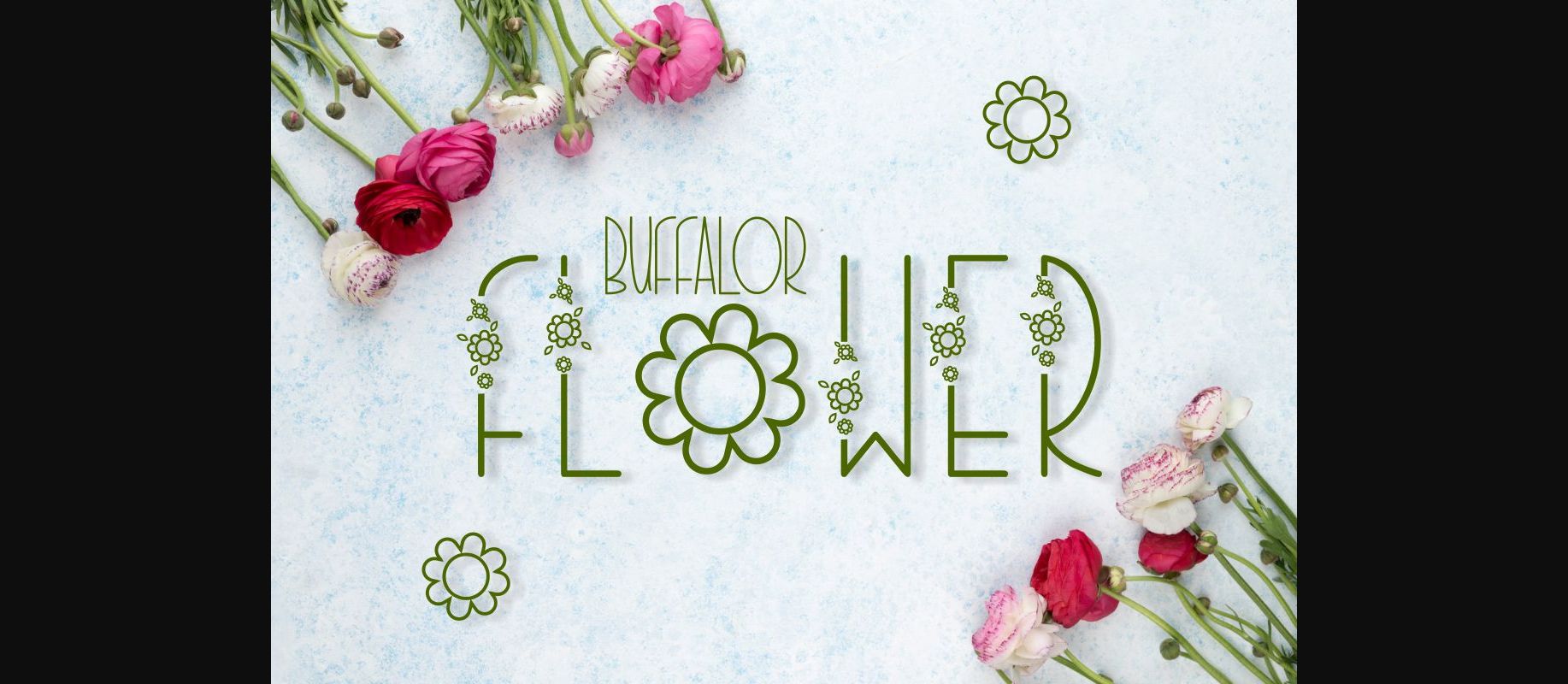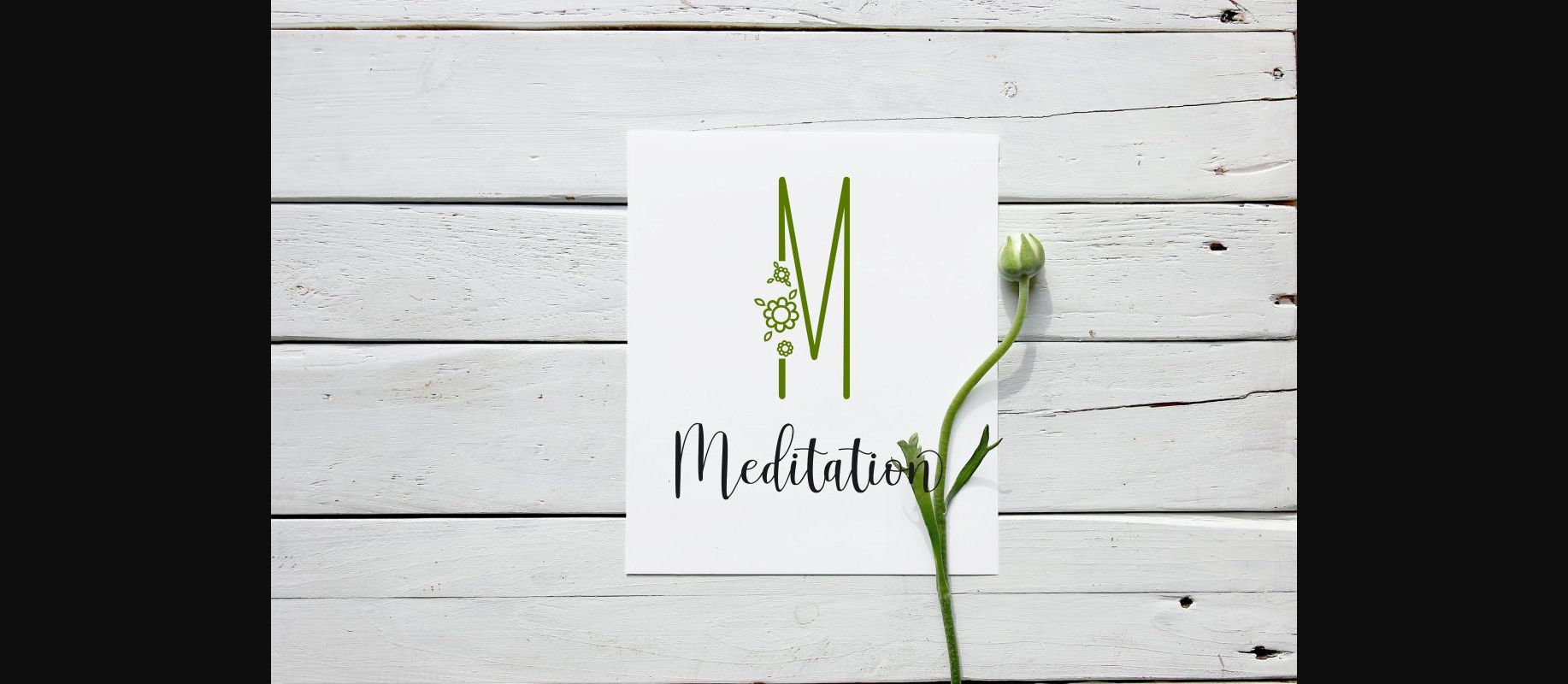
About Buffalor Flower Font
Buffalor Flower is a sweet and delicate decorative font, featuring lovely flower ornaments. Fall in love with its authentic feel and use it to create gorgeous wedding invitations, beautiful stationary art, eye-catching social media posts, and cute greeting cards.